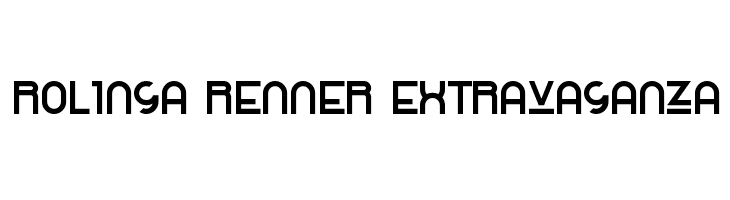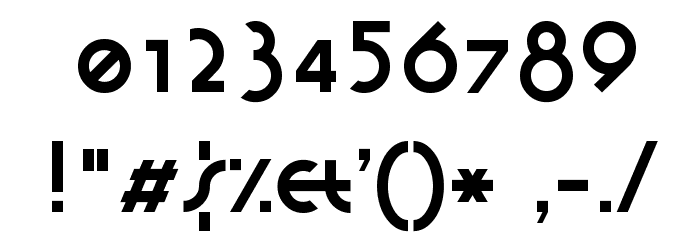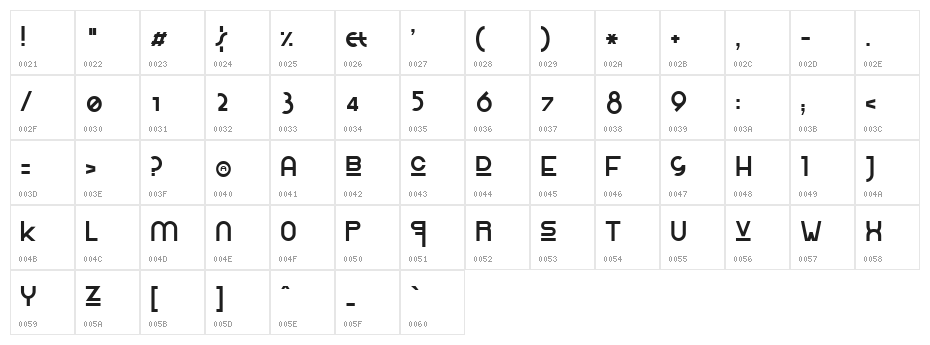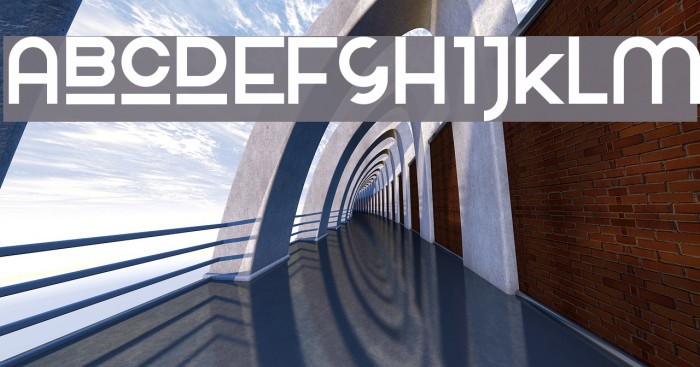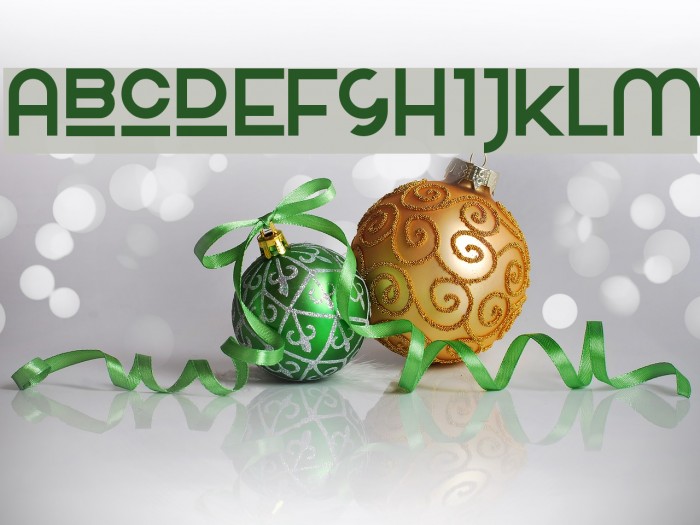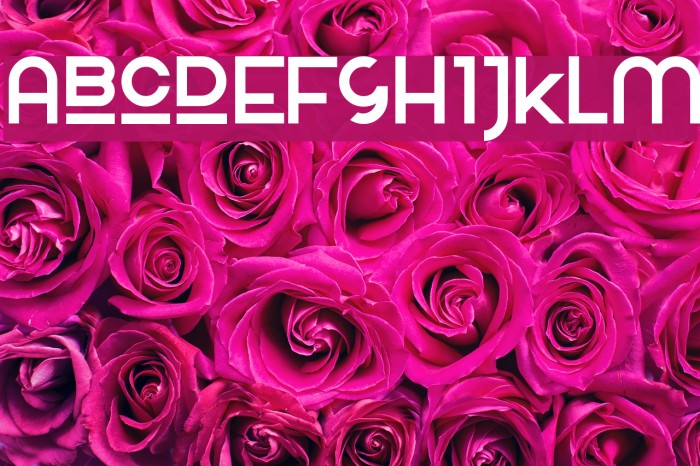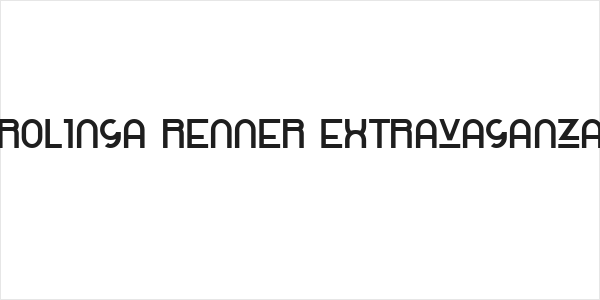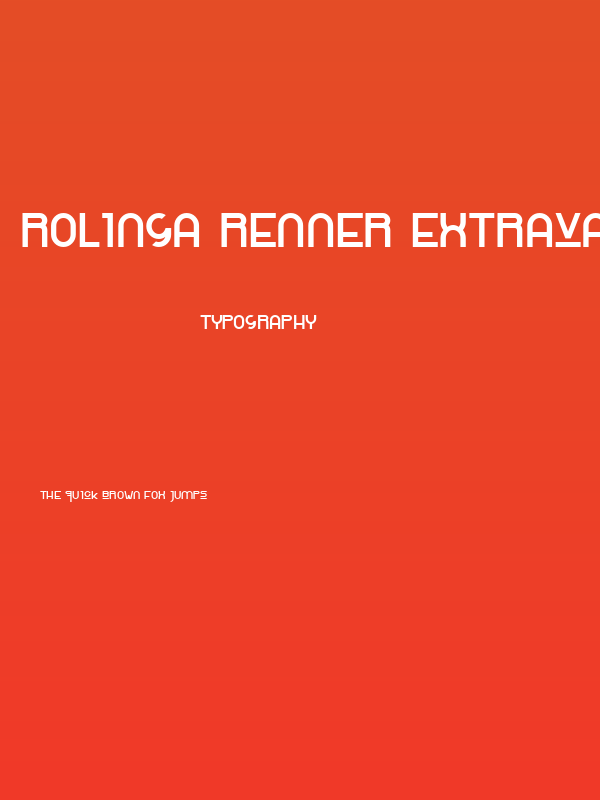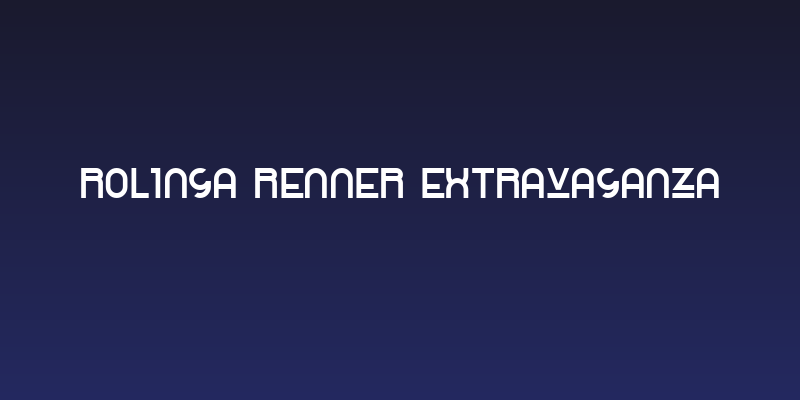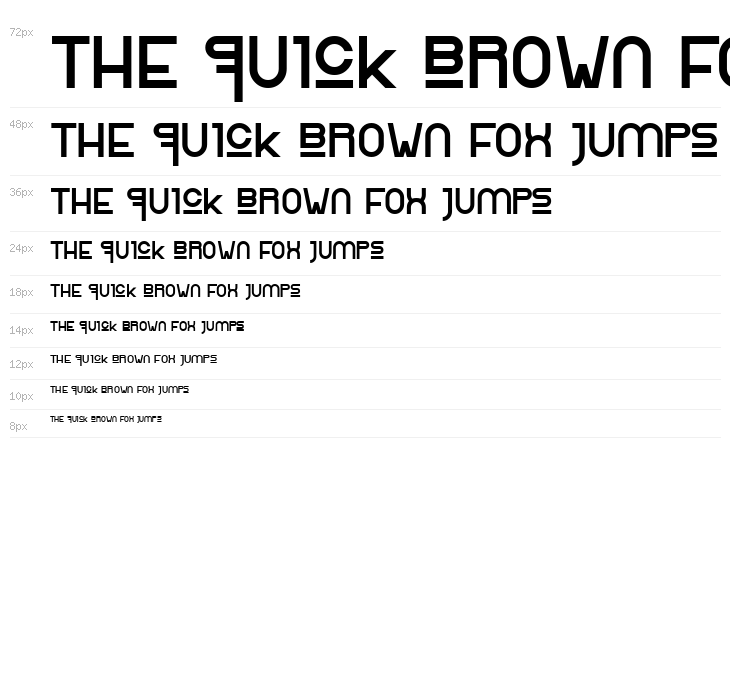
Rolinga Renner Extravaganza Font
Rolinga Renner Extravaganza Description
This font features a bold, geometric design with a futuristic flair. The characters are constructed with a combination of straight lines and sharp angles, creating a sense of modernity and innovation. The uppercase letters are particularly striking, with unique cuts and shapes that give them a distinctive appearance. The lowercase letters maintain the same geometric style, ensuring consistency throughout. Numbers and special characters are designed to complement the overall aesthetic, making this font versatile for various applications. The clean lines and structured form make it suitable for projects that require a contemporary and edgy look.
| Proposed Projects | Ideal for tech branding, modern posters, futuristic designs, and digital interfaces. |